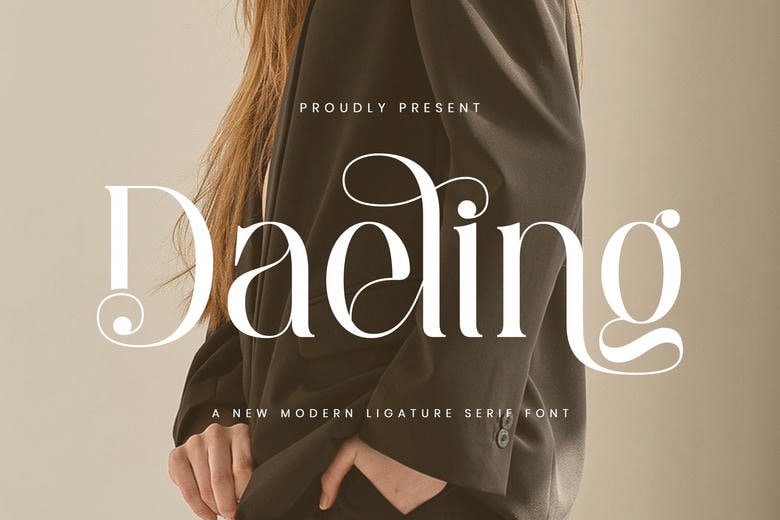
Daeling Font
The Daeling font is an excellent new modern ligature serif font that puts the refined typetry to the limits with its bold contrast and spectacular flourishing swashes and alternates.
Contrary to the conventional serifs, Daeling typeface integrates astonishing circular and ornate links, which change simple text into personalized flowing artworks. The beautiful decor on the terminals and base makes the sight to be extremely sophisticated and memorable.
The Daeling font comes in the most luxurious packaging of a product, high-fashion editorial, creative wedding logos, or a signature branding project, and the font offers designers a potent visual aid to convey prestige, art, and breathtaking and sensuously personal beauty in each unique design.
Daeling Serif Font